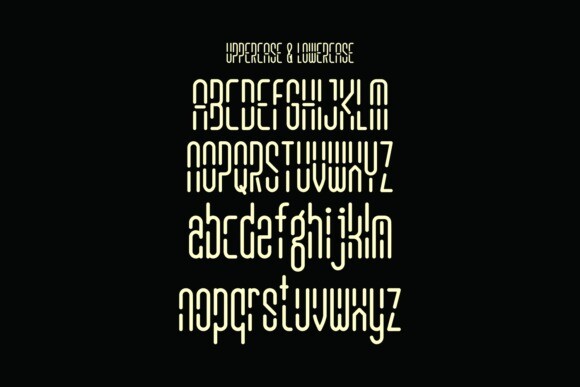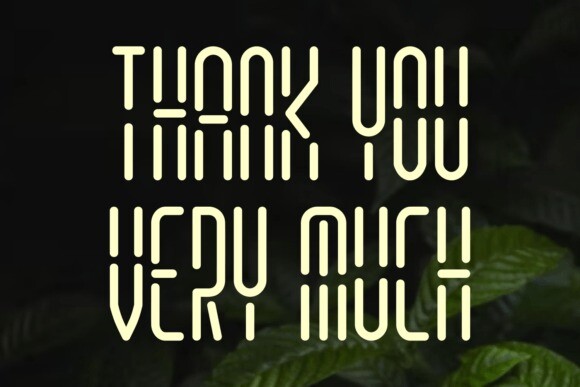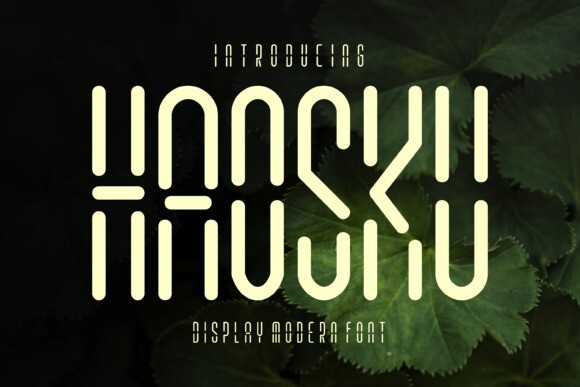
Haosku Font
Haosku Font, a unique display font featuring cut letters reminiscent of digital clock time. With a sleek and modern design, Haosku adds a contemporary edge to your projects. Perfect for creating a bold and distinctive visual impact in headers, logos, or any display text, this font brings a touch of modernity and precision to your designs. Embrace the cutting-edge style of Haosku for a dynamic and futuristic look.